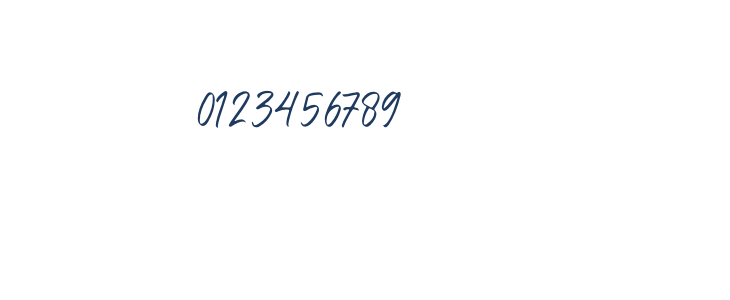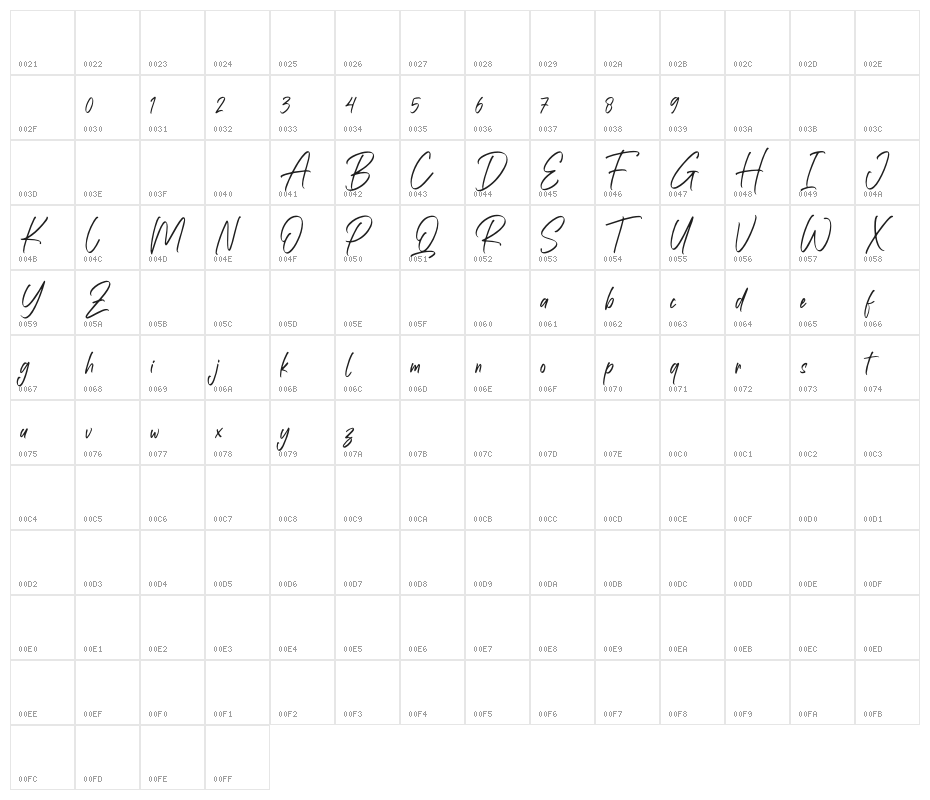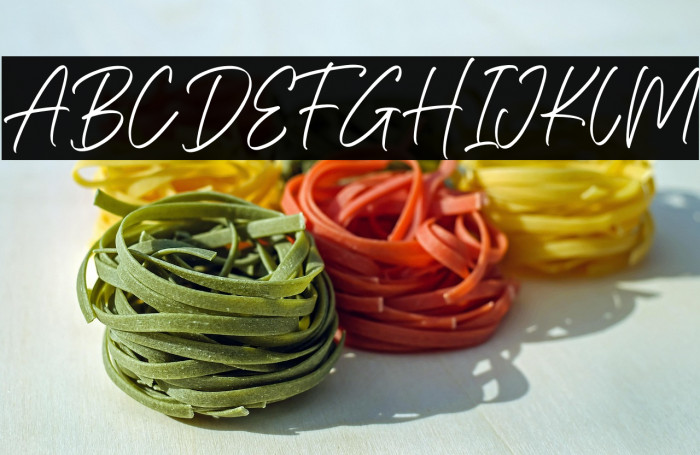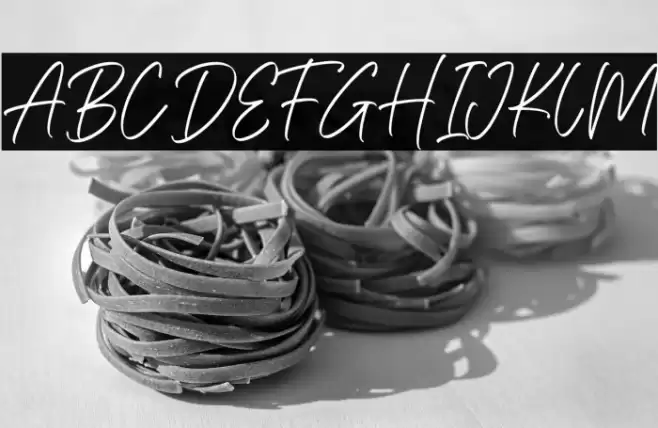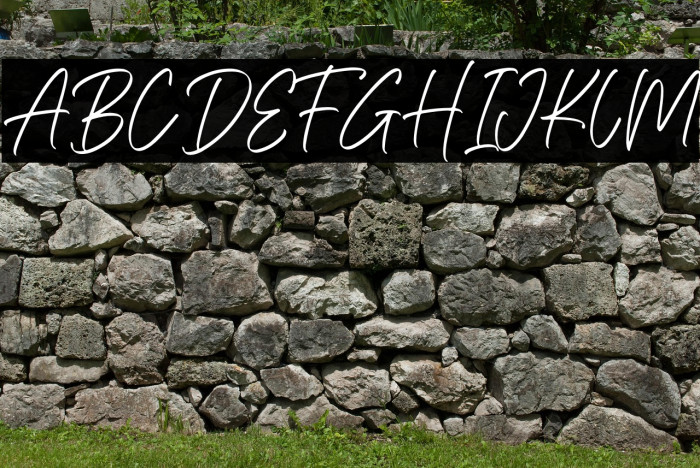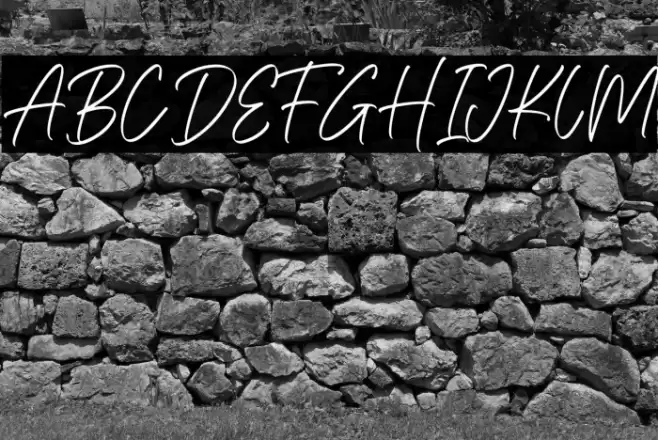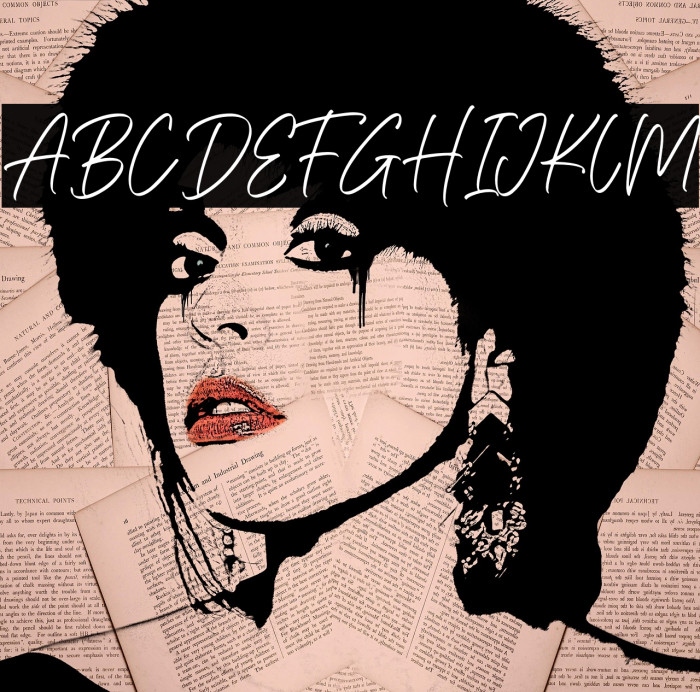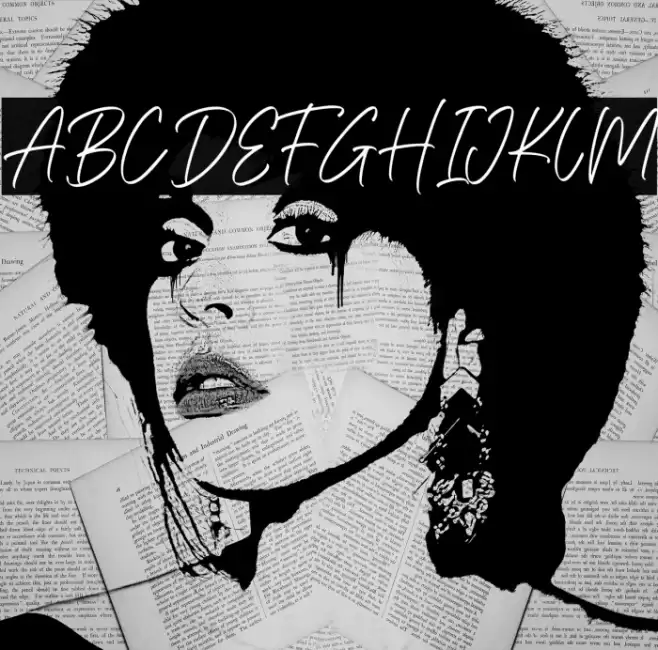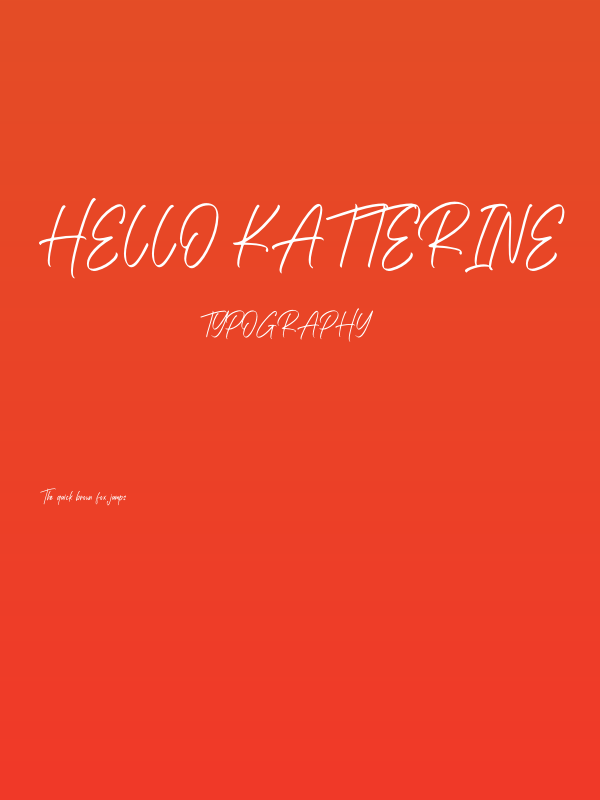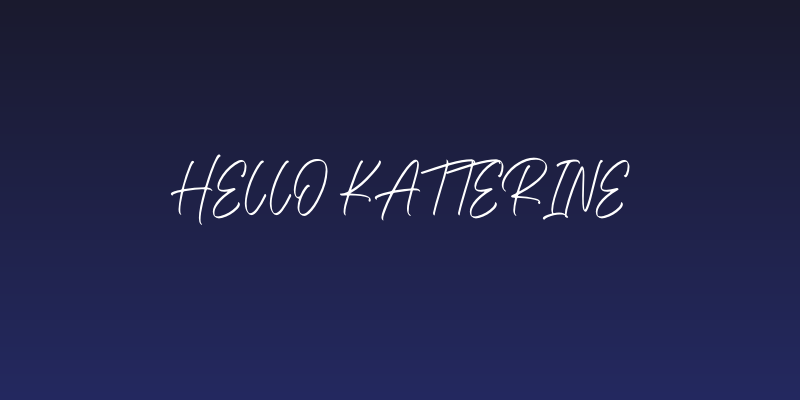
Hello Katterine Font
Hello Katterine Description
This font features a dynamic and fluid handwritten style, characterized by its elegant and flowing letterforms. The uppercase letters are tall and slightly slanted, giving a sense of movement and grace. The lowercase letters maintain a consistent style with smooth curves and a natural, organic feel. The numerals are clear and legible, matching the overall aesthetic of the font. This typeface exudes a personal and artistic touch, making it ideal for creative projects that require a humanistic and approachable appearance.
| Proposed Projects | Ideal for wedding invitations, greeting cards, personal branding, and artistic projects that require a personal touch. |